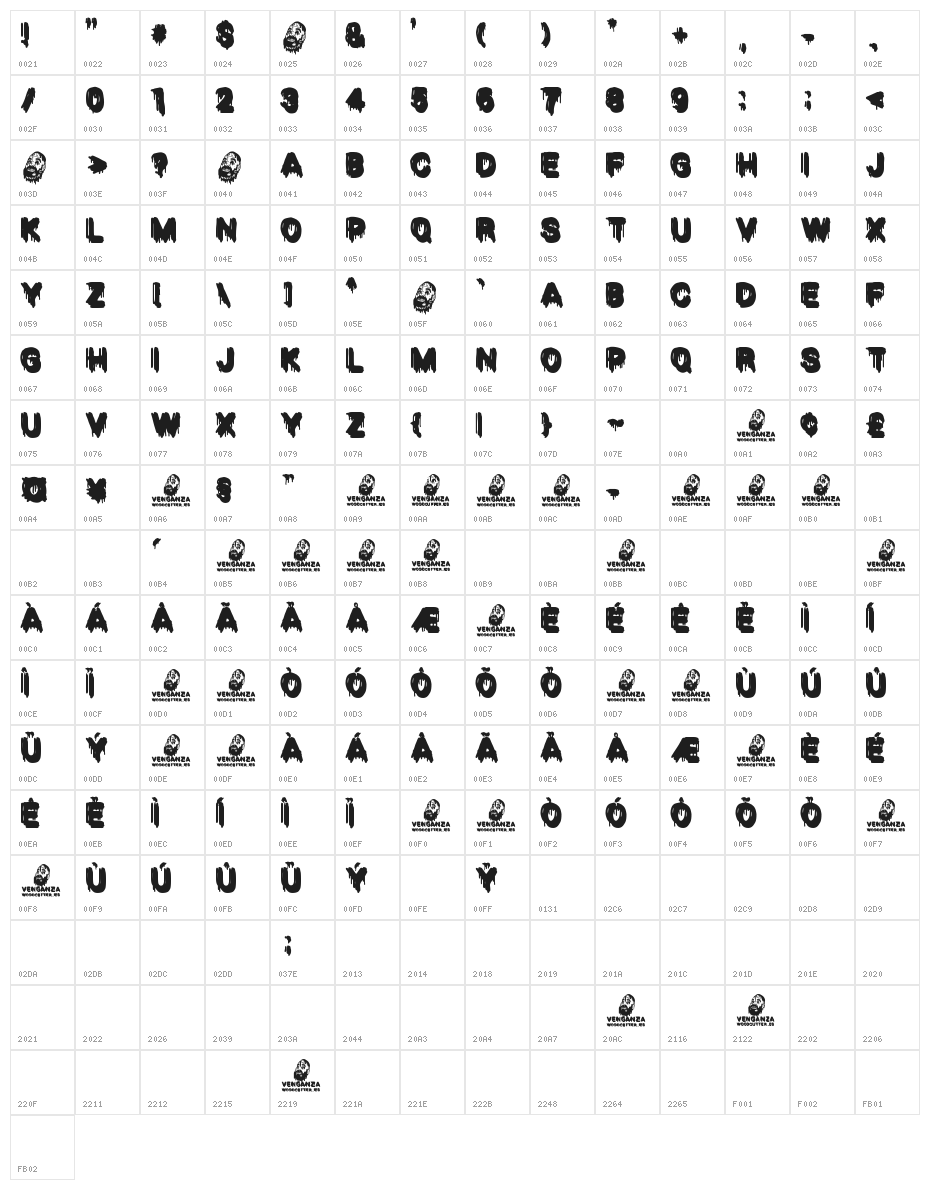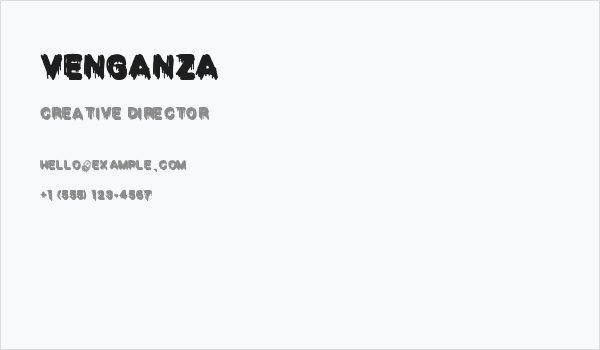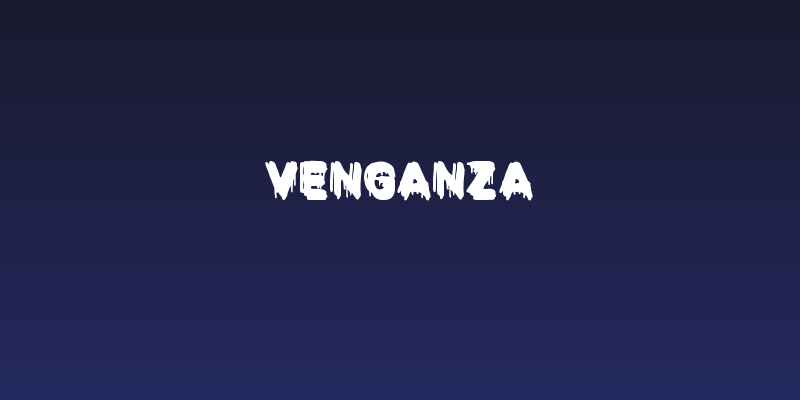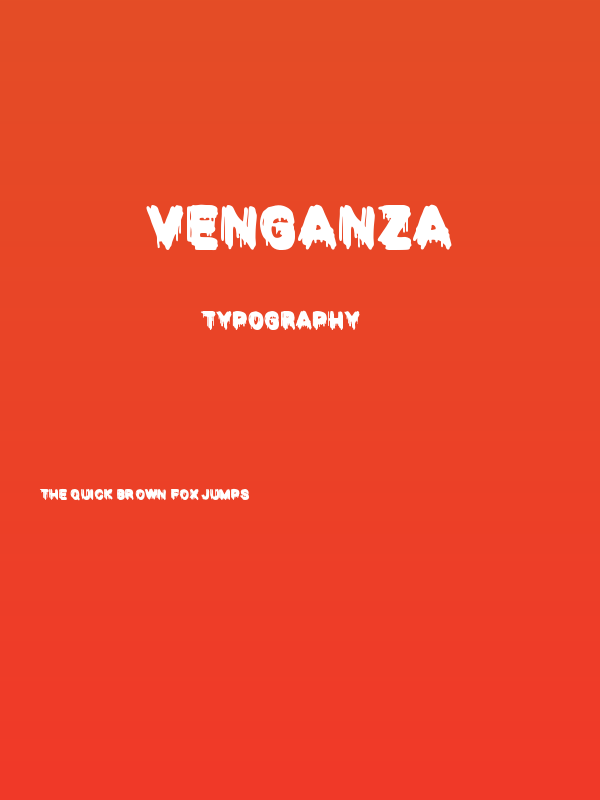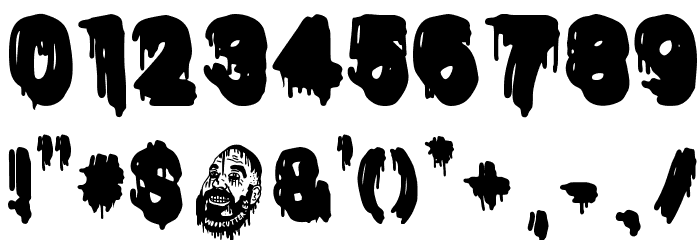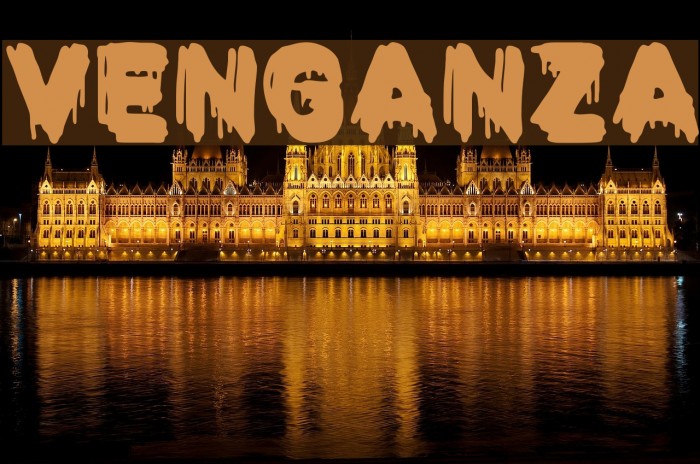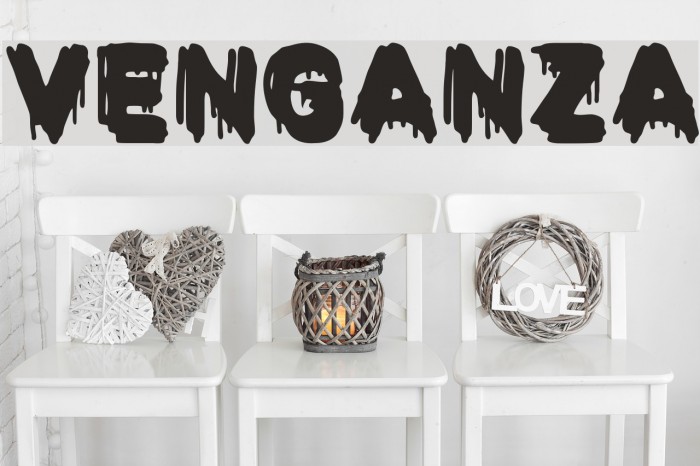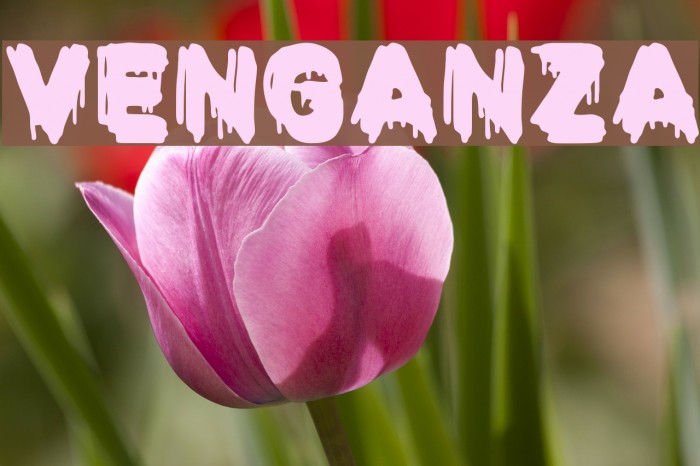
VENGANZA Font
VENGANZA Description
This font features a bold, dripping style that evokes a sense of horror and mystery. Each character appears as if it is melting or oozing, creating a visually striking effect. The uppercase and lowercase letters maintain a consistent thickness, contributing to a cohesive look. Numbers and special characters follow the same dripping motif, enhancing the overall theme. The font's unique design makes it ideal for projects that require a dramatic and eerie aesthetic.
| Proposed Projects | Ideal for Halloween posters, horror movie titles, spooky event invitations, and themed merchandise. |